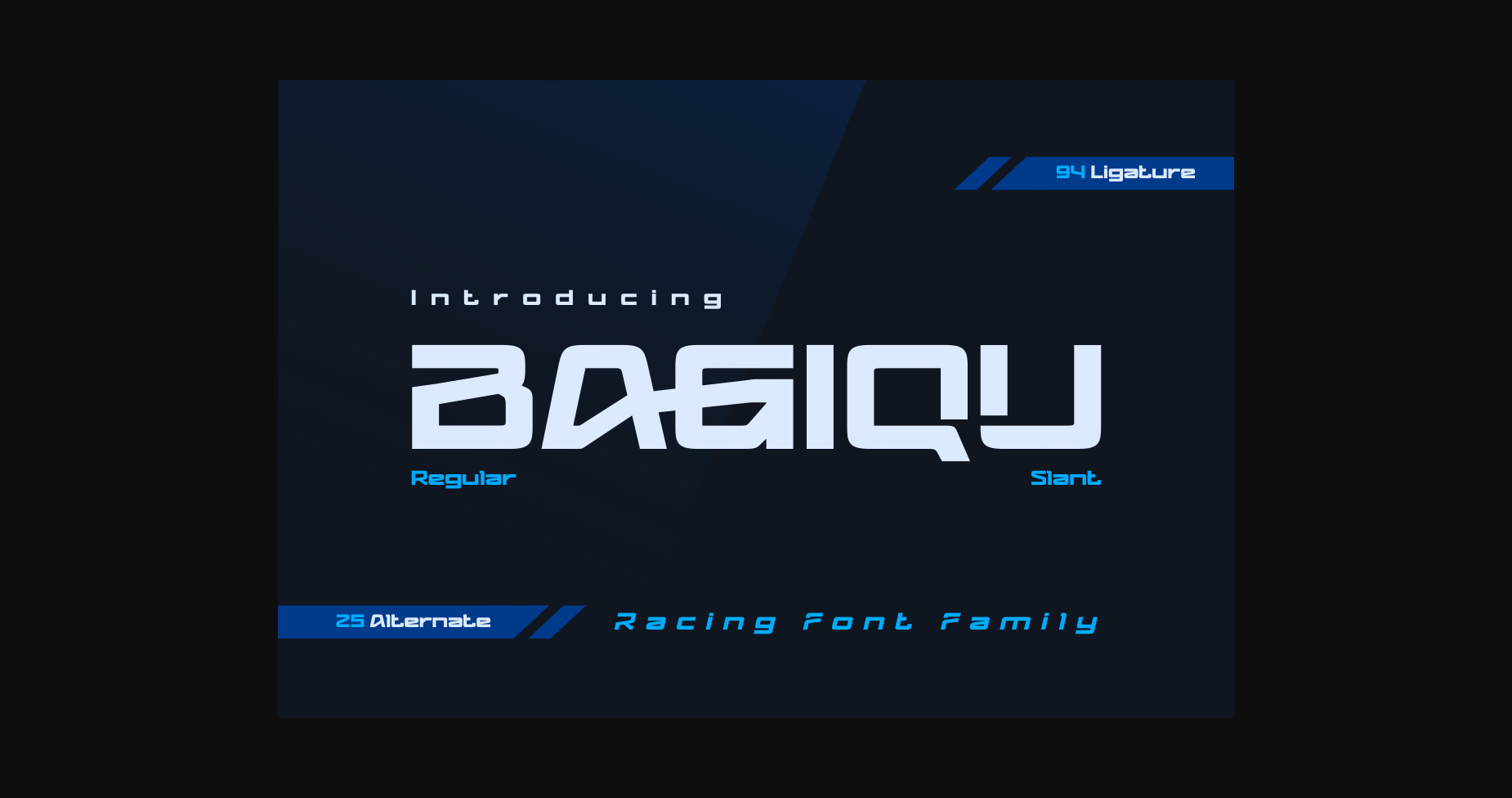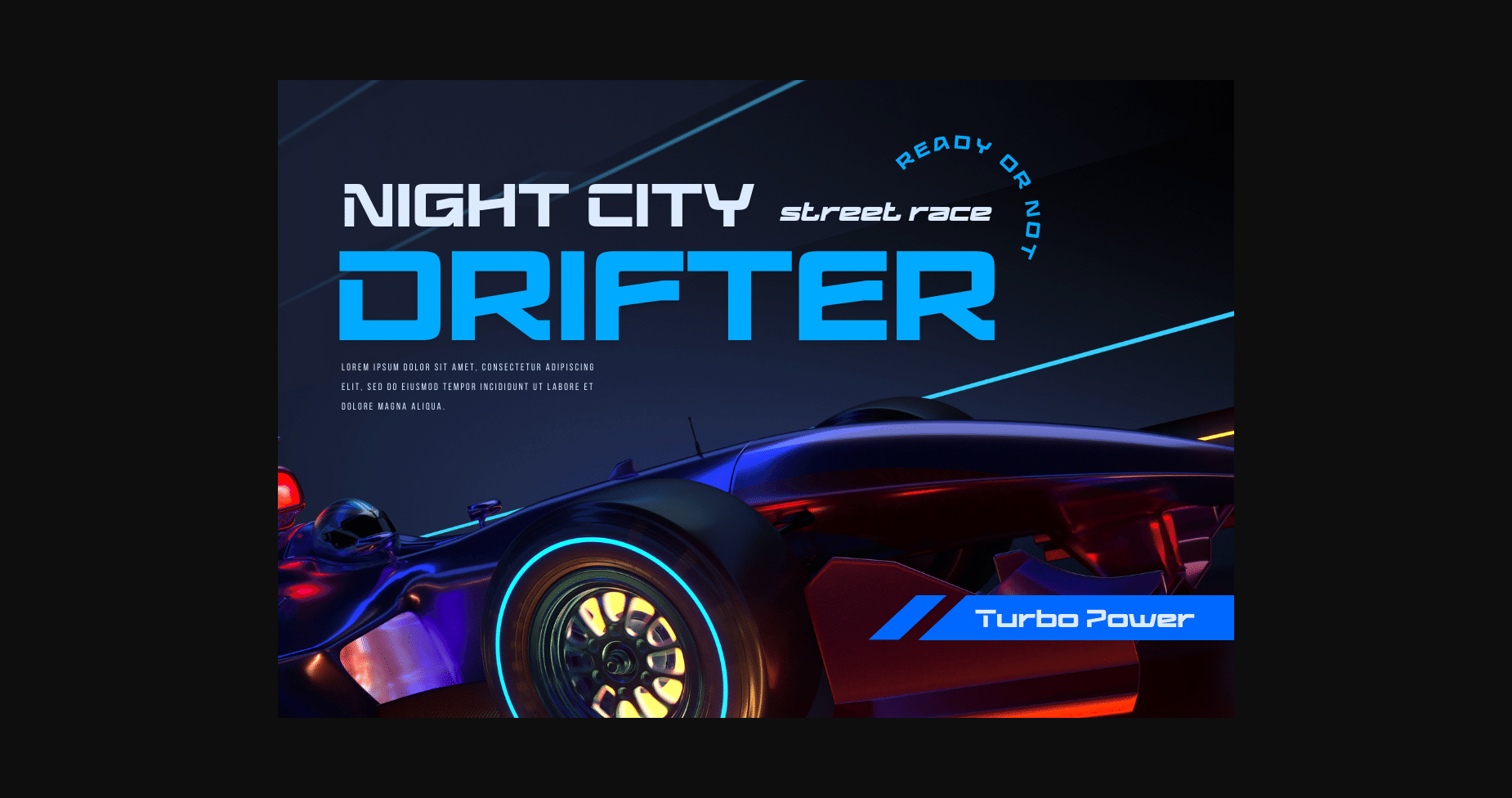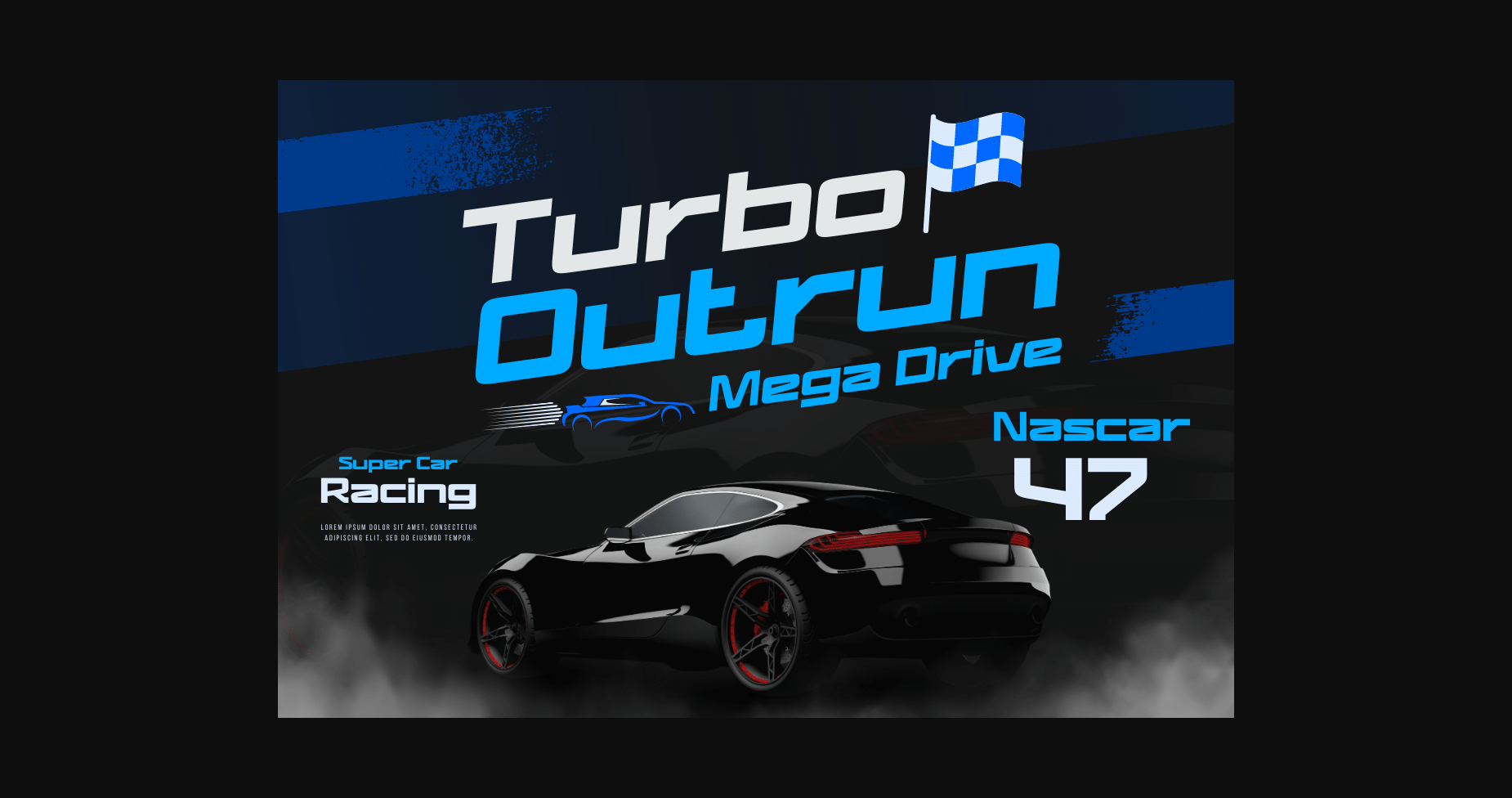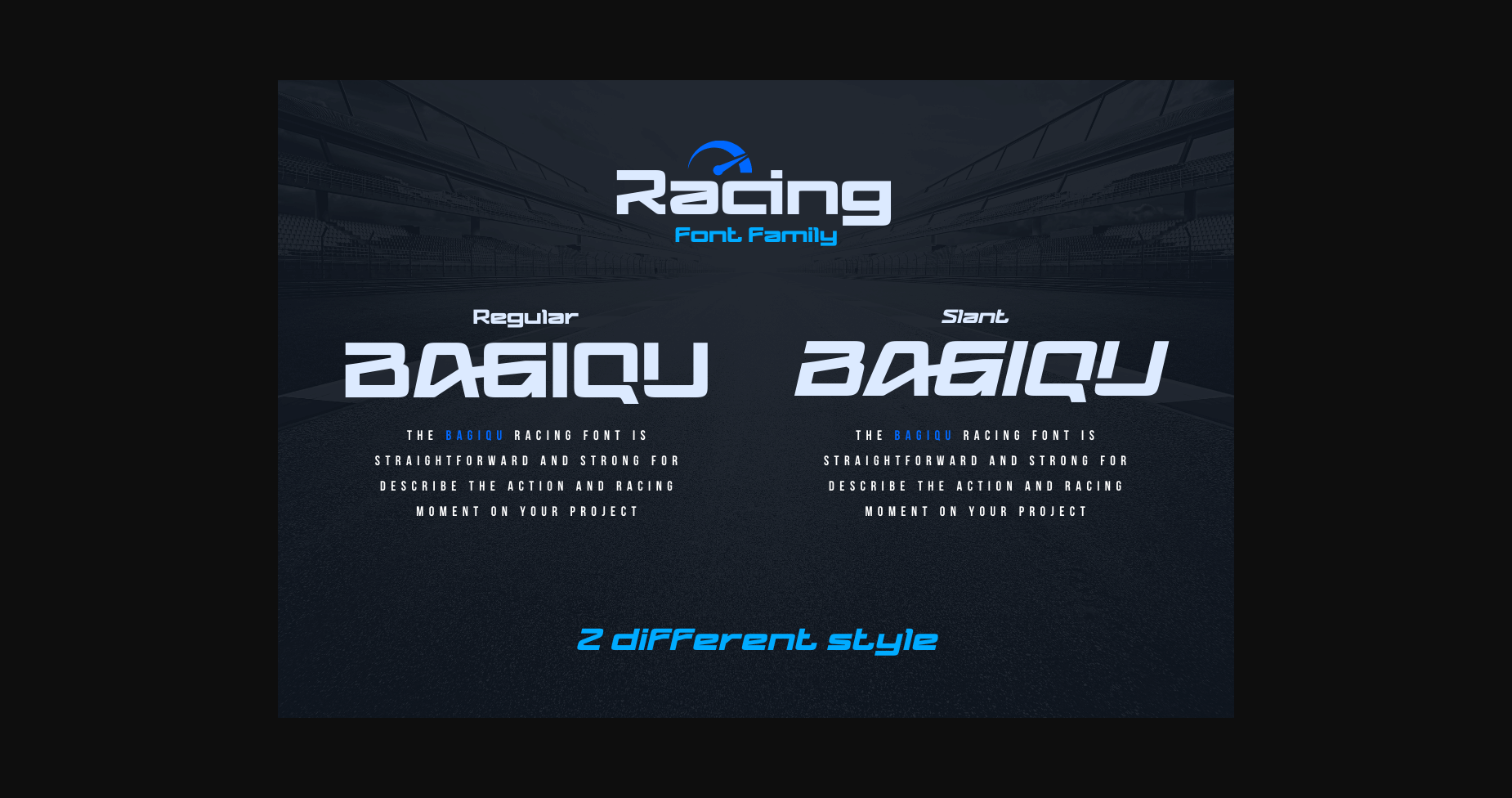
About Bagiqu Font
Bagiqu is a sporty Sans Serif font. Designed for any purpose you can use it to create a stunning design. The Bagiqu font is ready for your big projects and for the best results of your work. This font is suitable for Logo Design, Poster Design, Signature Design, Branding, and More. You can also use it on social media like a logo etc.